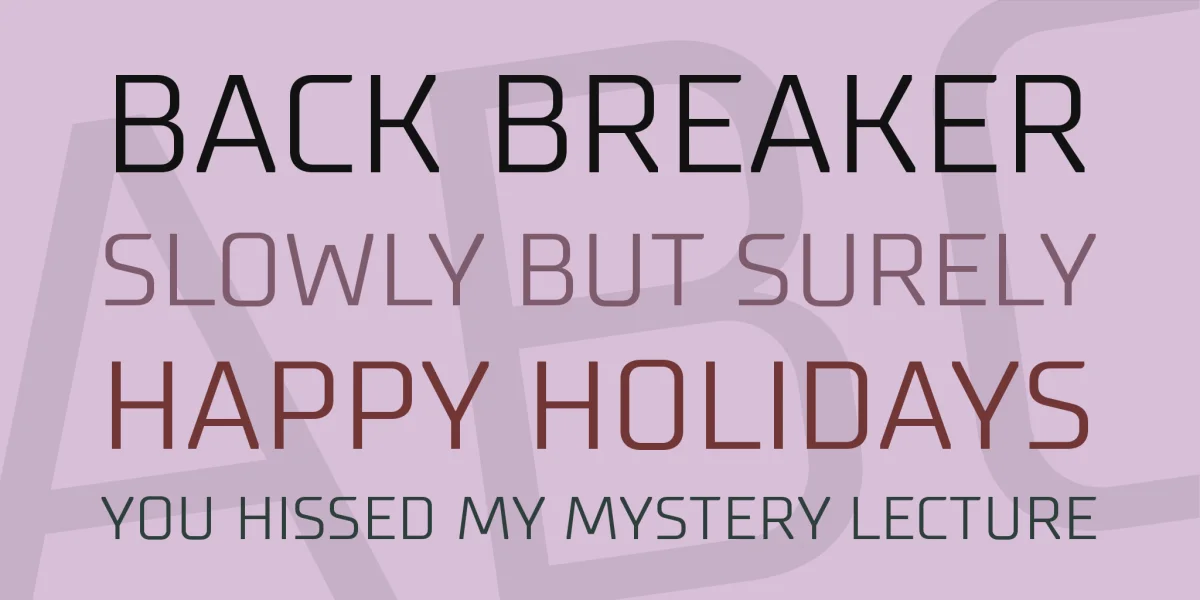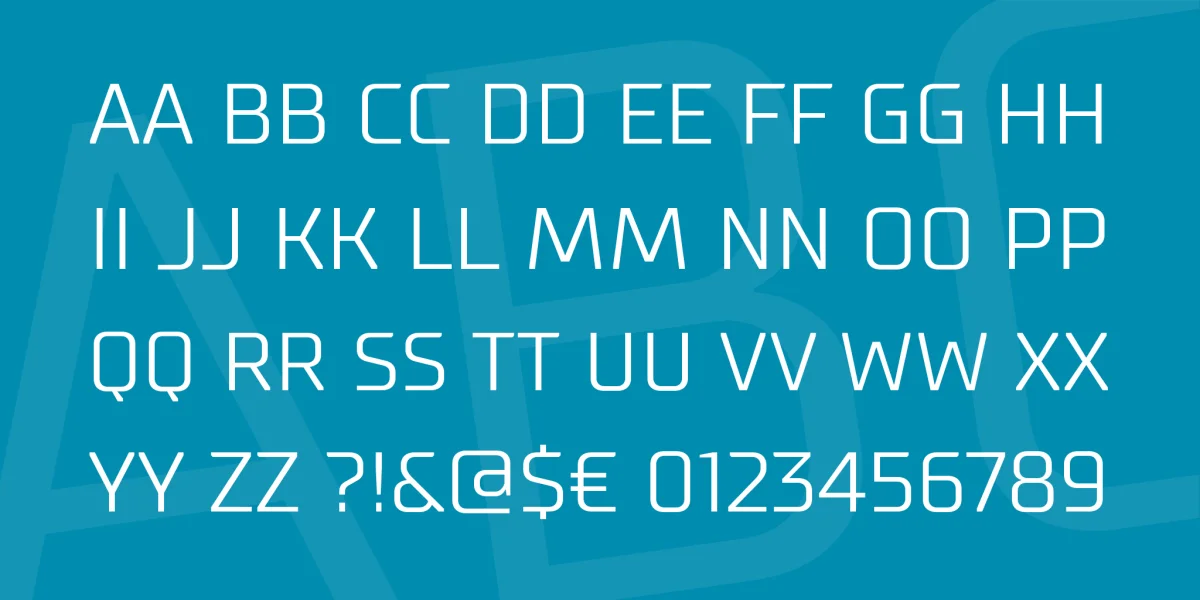
Supermolot is a modern square grotesk with the elements of the Soviet style. Supermolot is a logical continuation of the legendary Molot font that was developed in 2008 and has been free to download.